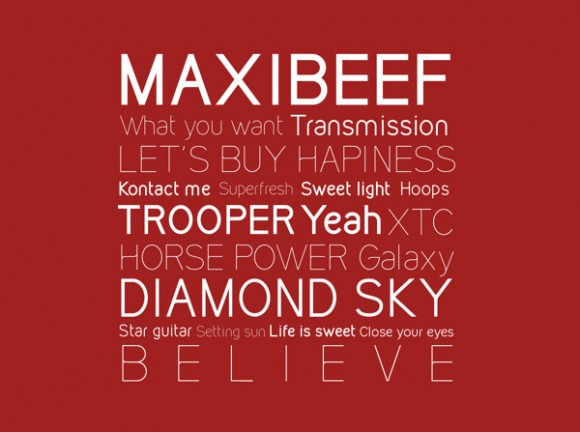
Free Kirvy font
Download and enjoy this free kirvy font. Cool typeface to showcase your designs in a modern way. Go give some love to Freebies Bug for creating this top-notch free font. You can create a professional designs with this fancy font.